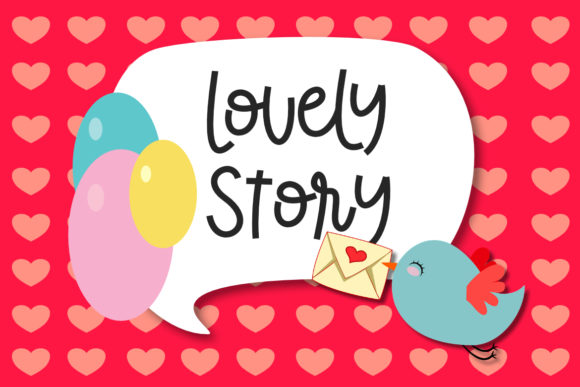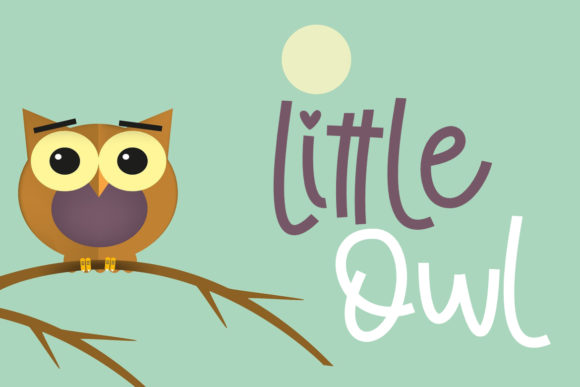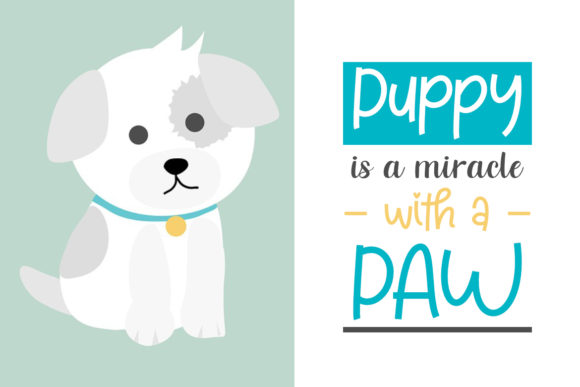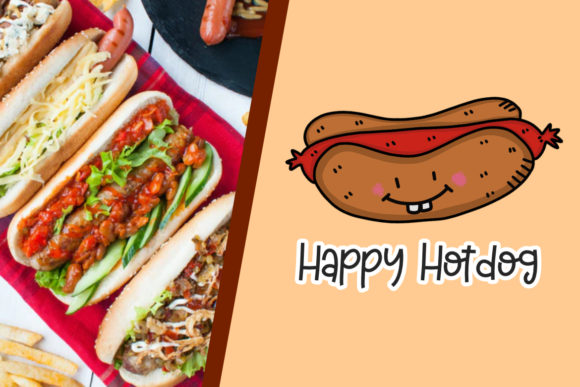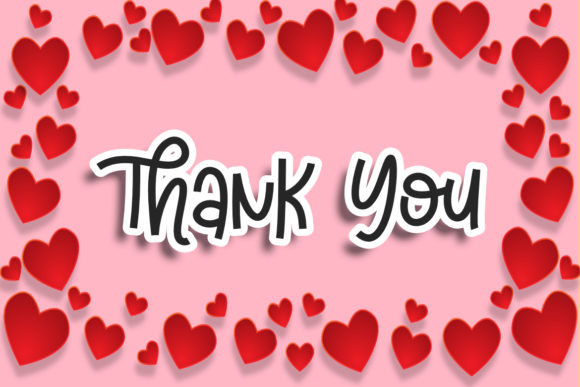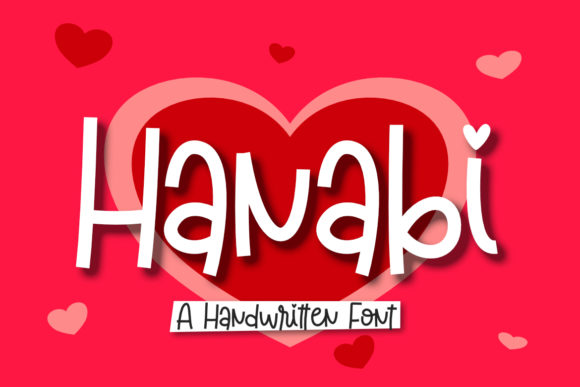
Introducing Hanabi Font: The Cute and Quirky Handwritten Font to Elevate Your Designs
Are you tired of using the same old fonts in your designs? Do you want to add a touch of joy and whimsy to your creative projects? Look no further than Hanabi Font, a beautiful handwritten font that is sure to make your designs stand out. In this article, we’ll take a closer look at Hanabi Font, its features, and how you can use it to take your designs to the next level.
What is Hanabi Font?
Hanabi Font is a cute and quirky handwritten font that is perfect for designers and crafters who want to add a personal touch to their work. This font is designed to be playful, fun, and engaging, making it ideal for a wide range of creative projects, from greeting cards and invitations to social media graphics and blog posts.
Features of Hanabi Font
So, what makes Hanabi Font so special? Here are just a few of its key features:
- Cute and Quirky Design: Hanabi Font has a unique and playful design that is sure to capture the attention of your audience. Its handwritten style gives it a personal and approachable feel that is perfect for creating a connection with your readers.
- Handwritten Style: The font’s handwritten style makes it perfect for creating a sense of warmth and personality in your designs. Whether you’re creating a blog post, social media graphic, or invitation, Hanabi Font is sure to add a touch of personality to your work.
- Easy to Read: Despite its playful design, Hanabi Font is easy to read and understand, making it perfect for use in a wide range of creative projects.
- Versatile: Hanabi Font is a versatile font that can be used in a wide range of creative projects, from digital designs to print materials.
How to Use Hanabi Font in Your Designs
Now that we’ve covered the features of Hanabi Font, let’s take a look at how you can use it in your designs. Here are a few ideas to get you started:
- Greeting Cards and Invitations: Hanabi Font is perfect for creating greeting cards and invitations that are personalized and unique. Use it to create custom birthday cards, wedding invitations, or holiday greetings.
- Social Media Graphics: Add a touch of personality to your social media graphics with Hanabi Font. Use it to create eye-catching Facebook posts, Instagram stories, or Twitter headers.
- Blog Posts: Use Hanabi Font to add a personal touch to your blog posts. It’s perfect for creating engaging headings, subheadings, and body copy.
- Crafting and DIY Projects: Hanabi Font is also perfect for crafters and DIY enthusiasts. Use it to create custom labels, signs, and other decorative elements for your projects.
Tips for Getting the Most Out of Hanabi Font
Here are a few tips for getting the most out of Hanabi Font:
- Experiment with Different Sizes and Colors: Don’t be afraid to experiment with different sizes and colors of Hanabi Font. This will help you find the perfect combination for your design.
- Use it with Other Fonts: Hanabi Font pairs well with other fonts, so don’t be afraid to use it in combination with other typefaces.
- Keep it Simple: While Hanabi Font is a playful font, it’s still important to keep your design simple and easy to read. Avoid overusing the font or using it in combination with too many other design elements.
| Font Name | Hanabi Font |
| Author | Typerex |
In conclusion, Hanabi Font is a beautiful handwritten font that is perfect for designers and crafters who want to add a touch of joy and whimsy to their creative projects. Its cute and quirky design, handwritten style, and ease of use make it a versatile font that can be used in a wide range of applications. Whether you’re creating greeting cards, social media graphics, or blog posts, Hanabi Font is sure to elevate your designs and make them stand out. So why not give it a try and see the difference it can make in your designs?